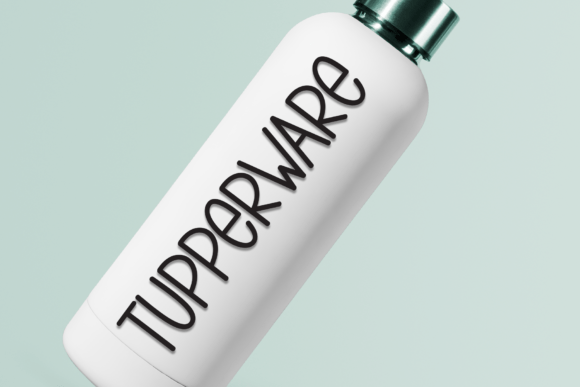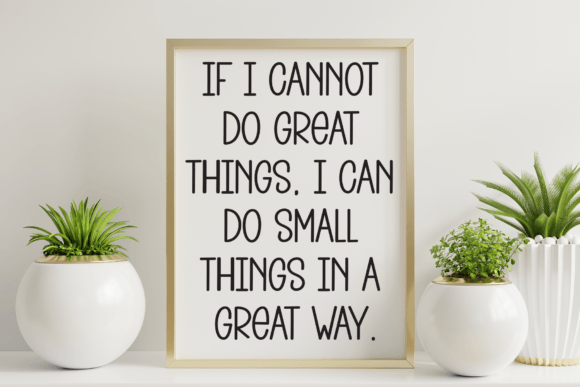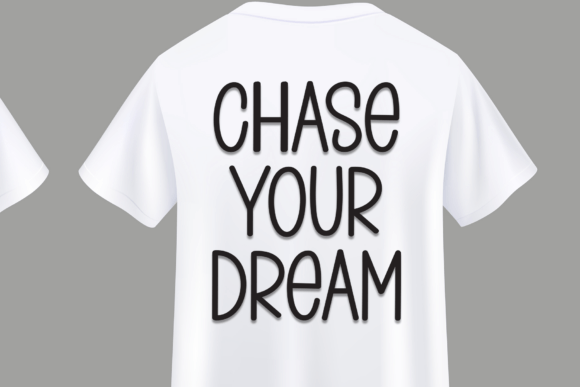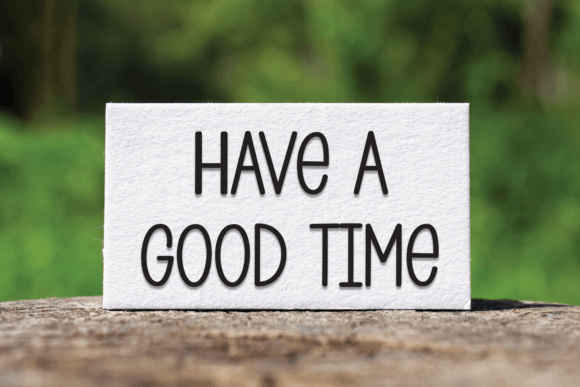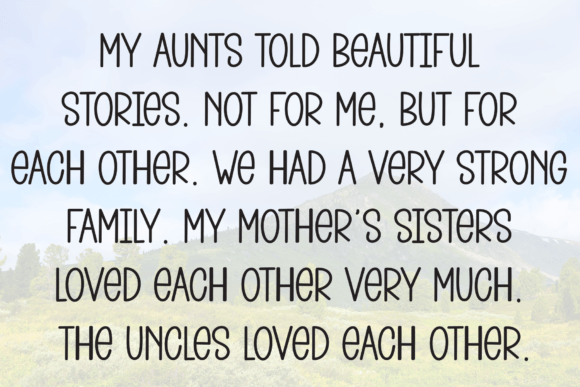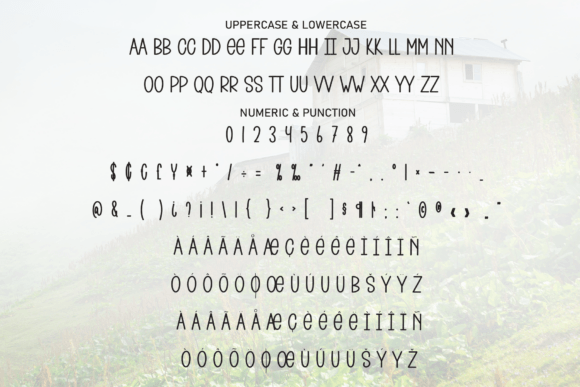
Introducing Farmhouse Font: The Ultimate Display Font for Making Statements
Are you tired of using the same old fonts for your creative projects? Do you want to make a bold statement and leave a lasting impression on your audience? Look no further than Farmhouse Font, a stylish and modern display font that’s designed to stand out from the crowd. With its distinctive character and strong visual appeal, this typeface is perfect for designers and crafters who want to add a confident and memorable touch to their work.
Farmhouse Font is a display font that’s specifically designed for making a statement. Its modern look and bold style make it perfect for eye-catching headlines, impactful posters, unique logos, and standout branding. Whether you’re working on a creative project for a client or personal brand, this font is sure to deliver a strong visual impact.
- Bold and Stylish: Farmhouse Font is a bold and stylish font that’s designed to grab attention. Its modern look and distinctive character make it perfect for creative projects that need a confident and memorable touch.
- Highly Versatile: This font is highly versatile and can be used for a wide range of creative projects, from eye-catching headlines and posters to unique logos and branding.
- Easily Readable: Despite its bold style, Farmhouse Font is easily readable, making it perfect for use in a variety of contexts, from digital media to print materials.
- Unique Character: Farmhouse Font has a unique character that sets it apart from other fonts. Its distinctive style and modern look make it perfect for designers and crafters who want to add a touch of personality to their work.
How to Use Farmhouse Font
Farmhouse Font is perfect for a wide range of creative projects, including:
- Headlines and Titles: Use Farmhouse Font to create eye-catching headlines and titles that grab attention and make a statement.
- Posters and Flyers: This font is perfect for creating impactful posters and flyers that stand out from the crowd.
- Logos and Branding: Farmhouse Font can be used to create unique logos and branding that reflect a brand’s personality and style.
- Digital Media: This font can be used in digital media, such as social media graphics, website headers, and email marketing campaigns.
Benefits of Using Farmhouse Font
- Increased Visibility: Farmhouse Font is designed to stand out and grab attention, making it perfect for designers and crafters who want to increase visibility and make a lasting impression.
- Improved Brand Recognition: By using a unique and distinctive font like Farmhouse Font, designers and crafters can help improve brand recognition and build a strong brand identity.
- Enhanced Creativity: This font is perfect for creative projects that need a bold and stylish touch. Its modern look and distinctive character make it perfect for designers and crafters who want to add a touch of personality to their work.
Farmhouse Font is a bold, stylish, and modern display font that’s designed to make a statement. With its distinctive character and strong visual appeal, this typeface is perfect for designers and crafters who want to add a confident and memorable touch to their work. Whether you’re working on a creative project for a client or personal brand, Farmhouse Font is sure to deliver a strong visual impact. So why settle for a ordinary font when you can make a statement with Farmhouse Font?